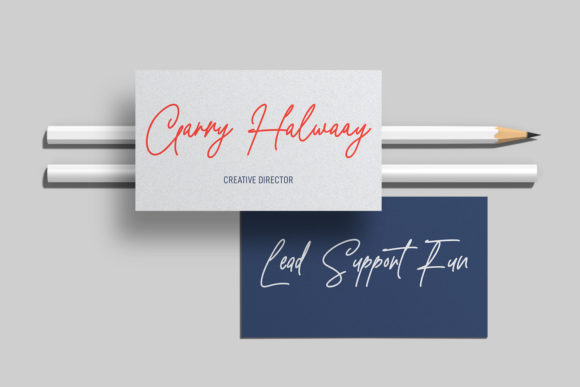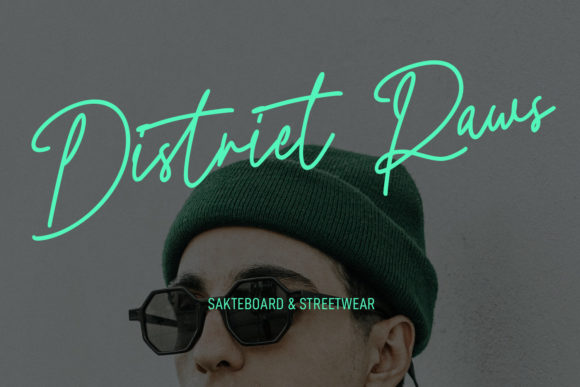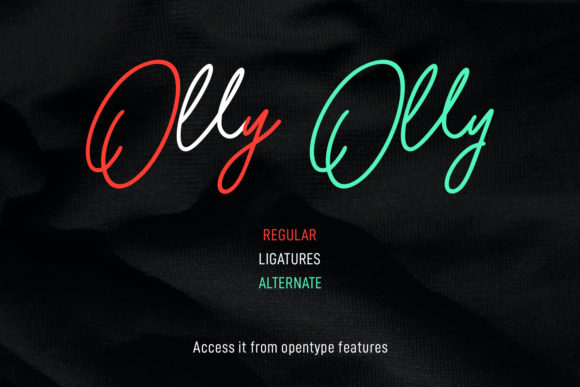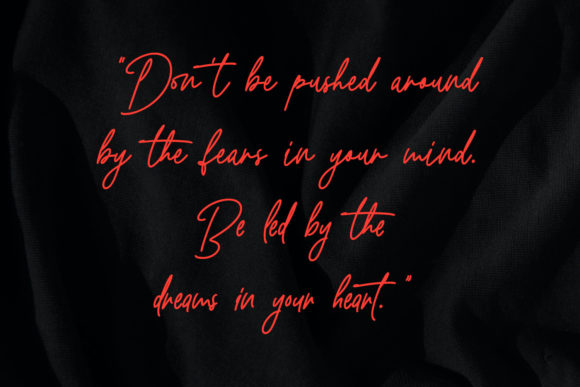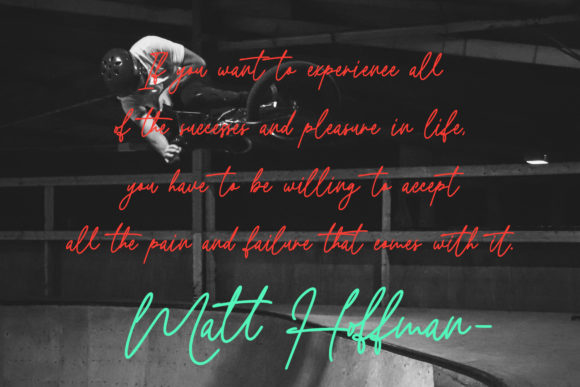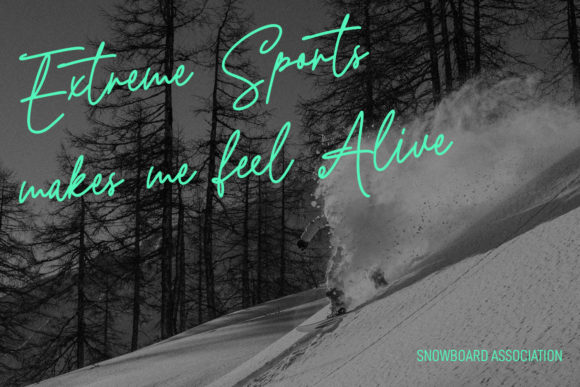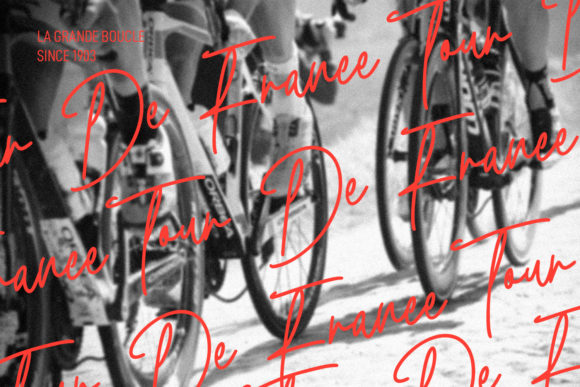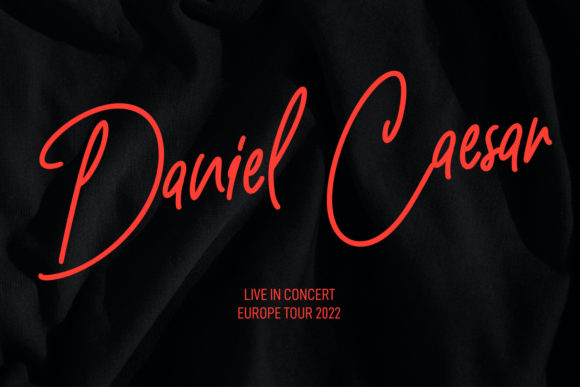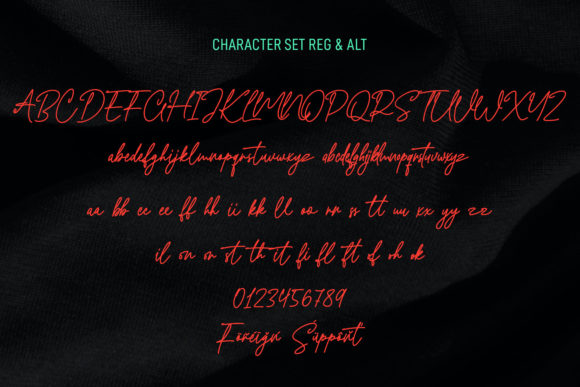
Quiltyks Script Font
About Quiltyks Script Font
Quiltyks Script is a unique and elegant handwritten font. It looks beautiful on a variety of designs requiring a personalized style, such as wedding invitations, thank you cards, weddings, greeting cards, logos and so on.